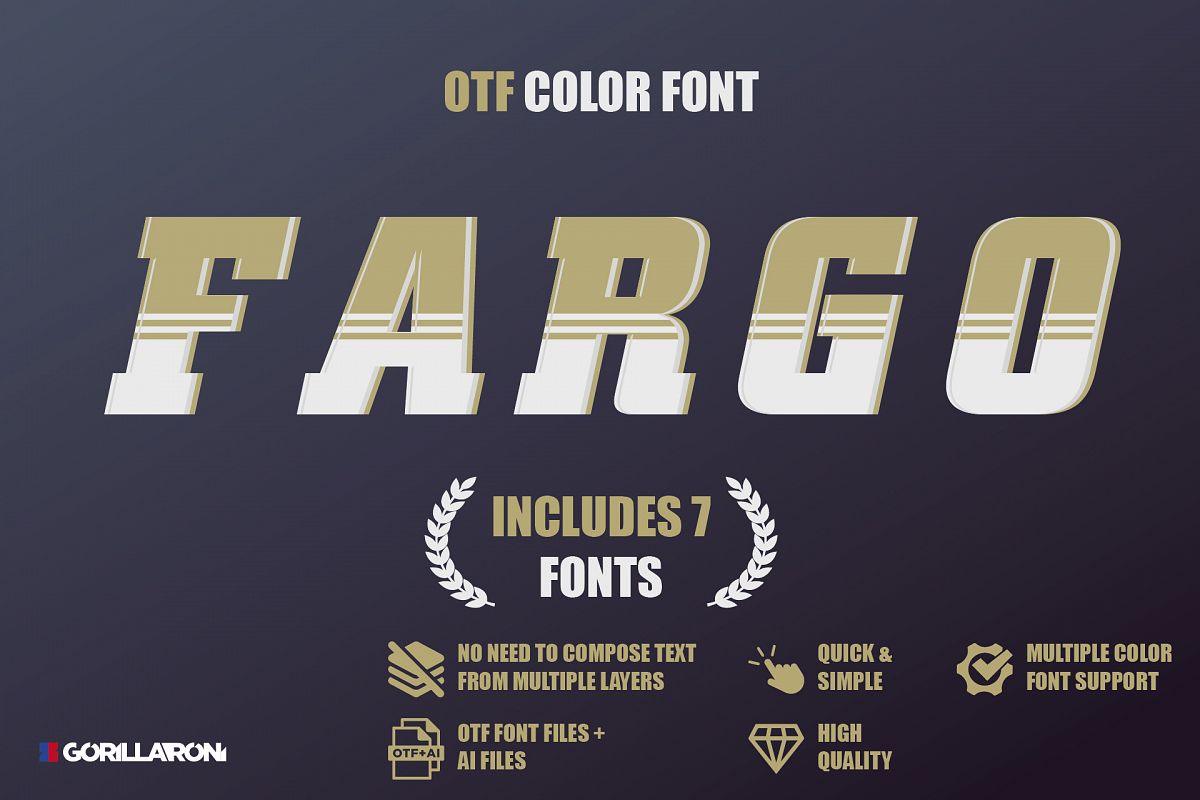
OTF color font - Fargo
? Introducing OTF color font - Fargo. ?
It’s a classy typeface with strong, thick serifs. It has a little bit of personality and can be used for headers and body copy in heavier weights. It’s simplistic and forward approach gives an elevated feel and elegance to any product it touches. Is a sport style font, is creative and modern font. Design beautiful sports posters, urban style posters, magazine covers, make bold advertising and headlines perfectly organized in blocks, all with a strong first impression and rigid masculine look.
• All uppercase&lowercase display, numerals & punctuation